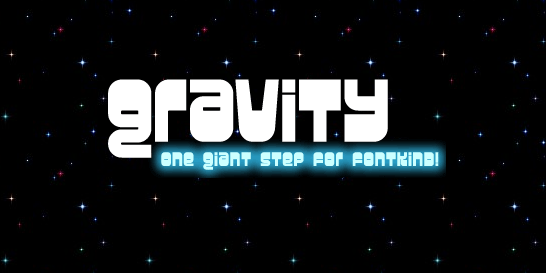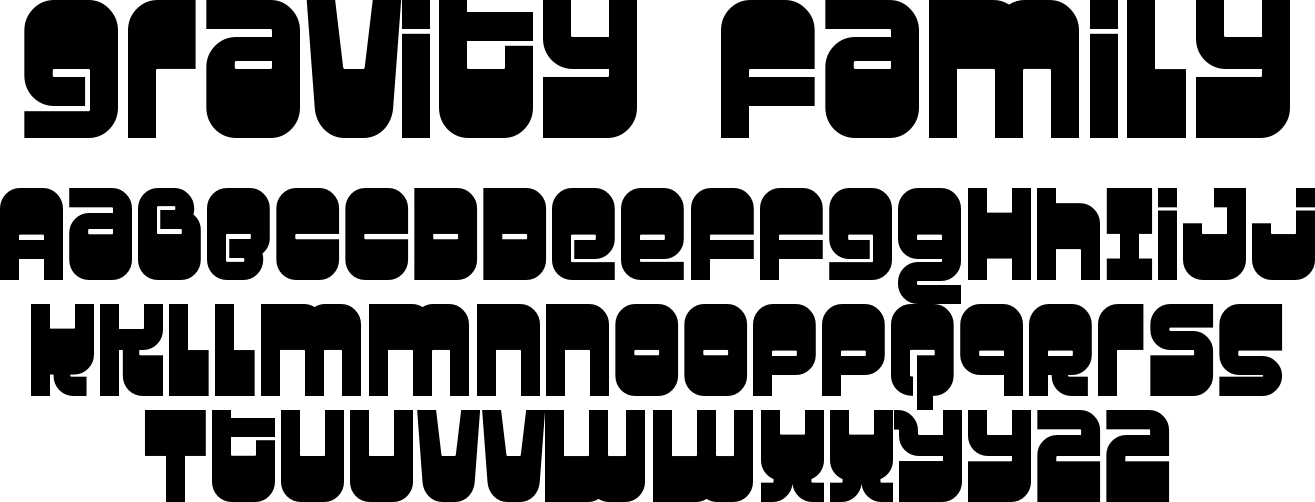
Gravity
What would we do in the design world without space-age style fonts? I would probably go crazy. Back in 1997, before I realized people like Chank and Larabie made cool fonts nobody else did, I was just a silly college student that thought the "wild fonts" consisted of Brush Script and Hobo. Mad shout outz to the two up top for keepin it real, and to Steve Guttenburg, for sportin' tha Police Academy skillz like no other.